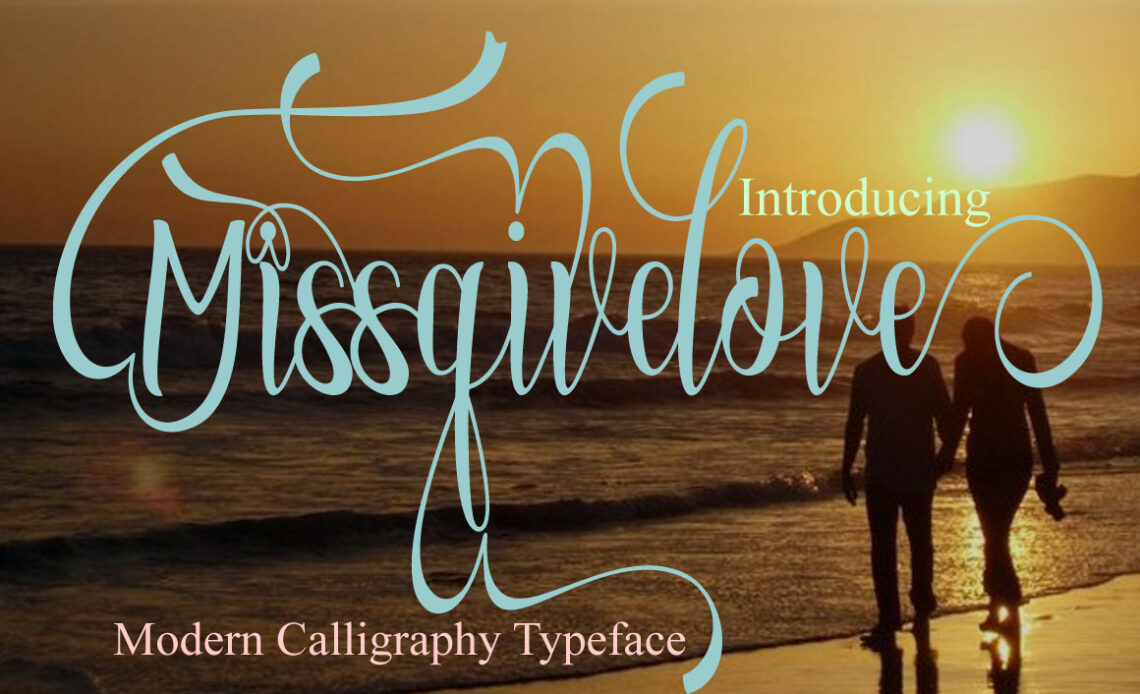
Prepare yourself to fall head over heels for Missgivelove, the enchanting script font that will ignite your creativity and elevate your designs to extraordinary heights. Its mesmerizing long swashes and captivating alternates will dance across your screens, weaving a spell of elegance and sophistication.
Immerse yourself in a world of endless possibilities with Missgivelove. Whether you're crafting heartfelt invitations, enchanting logos, or captivating social media posts, this font will transform your words into works of art. Its versatility knows no bounds, making it the perfect choice for a wide range of projects, from delicate branding to bold headlines.
At the heart of Missgivelove lies a timeless beauty that will never cease to inspire. Its flowing lines and graceful curves evoke a sense of romance and nostalgia, adding a touch of magic to every creation. Let your imagination soar as you explore the endless possibilities that await you with Missgivelove.
Created by the talented Cek Creative, Missgivelove is a testament to the power of creativity and passion. Each character has been meticulously crafted with love and attention to detail, ensuring that your designs will exude an air of undeniable quality.